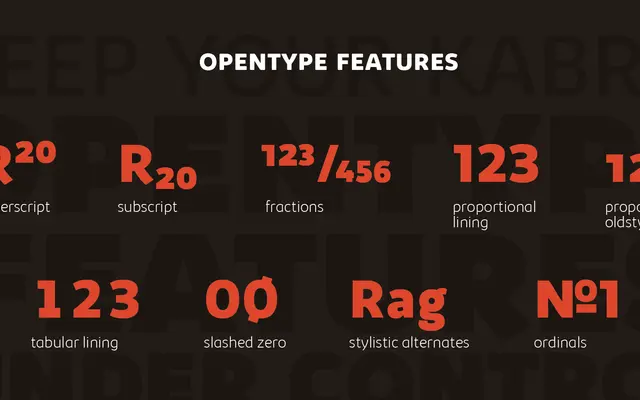
Kabrio Pro
Zetafonts · Cosimo Lorenzo Pancini and Andrea Tartarelli · 2017
A geometric sans in four corner-treatment variants — standard, rounded, softer rounded and chamfered — each spanning seven weights with italics, for a total of 56 styles.
Designed by Cosimo Lorenzo Pancini and Andrea Tartarelli at Zetafonts, Kabrio offers a single underlying geometric sans distributed across four stylistic subfamilies: the standard Roman, the gently rounded Alternate, the more pronounced Soft, and the mechanically chamfered Abarth. Each subfamily runs from Extralight to Heavy with matching italics, giving 56 styles in total. OpenType support covers oldstyle, tabular and fractional numerals alongside stylistic alternates, with Latin and Cyrillic covering 199 languages.
Kabrio is a geometric sans-serif with clean, minimal letterforms and four distinct corner treatments ranging from sharp to rounded, placing it firmly in the geometric sans tradition with display-oriented flexibility.